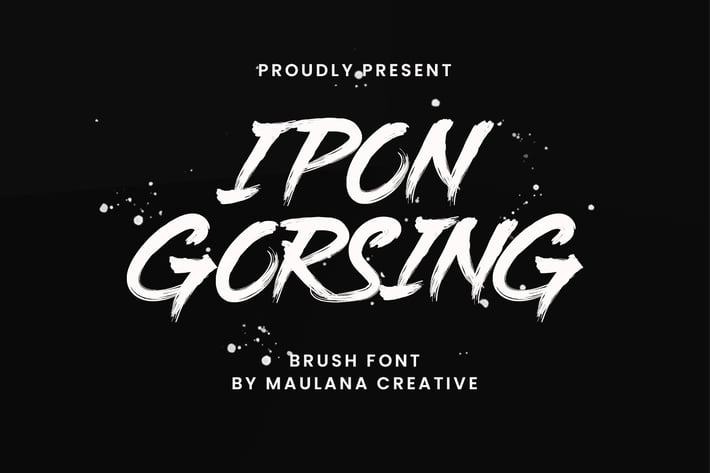
Ipon Gorsing Brush Font
Give your designs an authentic brush handcrafted feel. "Ipon Gorsing Brush Font" is perfectly suited to signature, stationery, logo, typography quotes, magazine or book cover, website header, flyer, clothing, branding, packaging design and more.